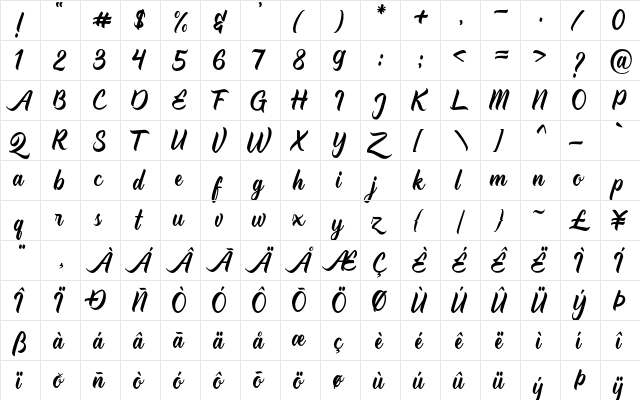
TradeMark Demo Regular
| Designer | Zuljroh |
Design Context for TradeMark Demo Typeface
TradeMark Demo is a composed and adaptable typeface that performs quietly and consistently across a wide range of design contexts.